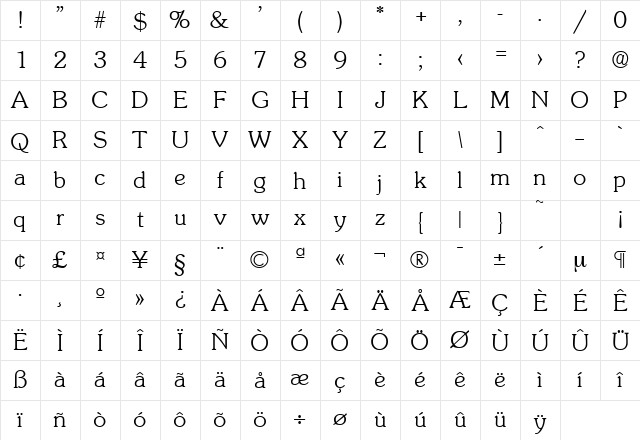
Sunset-Serial-ExtraLight Regular Free Font
Sunset-Serial-ExtraLight Regular
Design Context for Sunset-Serial-ExtraLight
Sunset-Serial-ExtraLight is a composed and adaptable typeface that performs quietly and consistently across a wide range of design contexts. Its slender proportions lend an understated elegance to any composition.